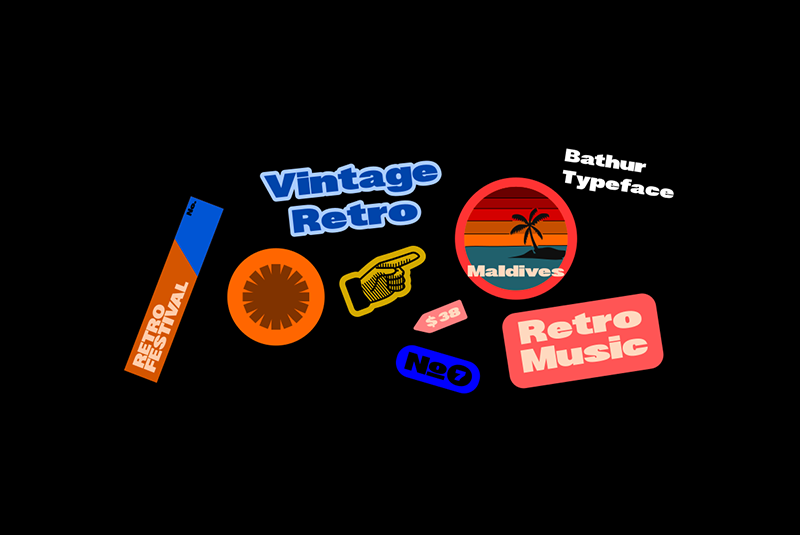
Font name: | Bathur |
Author: | 4RM Font |
Note by 4RM Font | |
Inspired by Brutalism Design, this font is designed with attention to the value of authenticity and harmonious beauty. made with a wider size which will add value to the authenticity of this font. suitable for use in graphic designs such as posters, stickers, especially Retro-themed designs and Brutalism designs -This font available with license FREE PERSONAL USE LICENSE -Here is a link to buy a commercial license of full version Bathur font : myfonts.com |